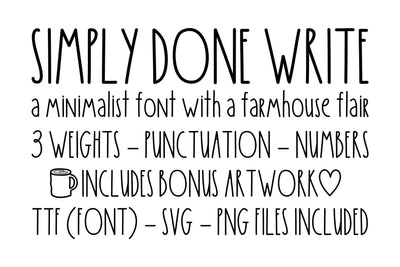
SIMPLY DONE WRITE
A minimalist font with a farmhouse flair!
Includes 3 weights: Lite, Regular and Bold
All fonts include uppercase, lowercase, numbers, punctuation and bonus dingbats.